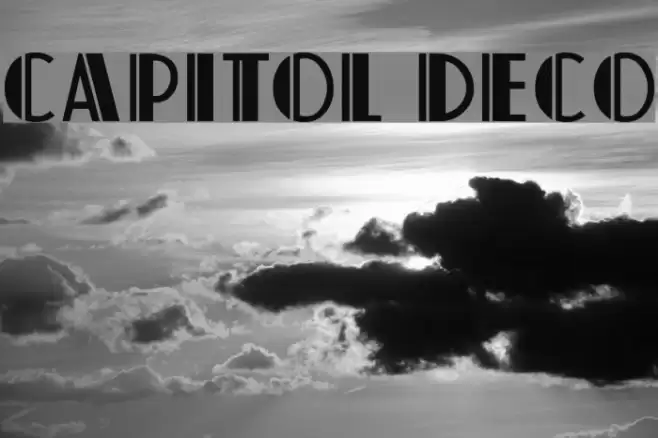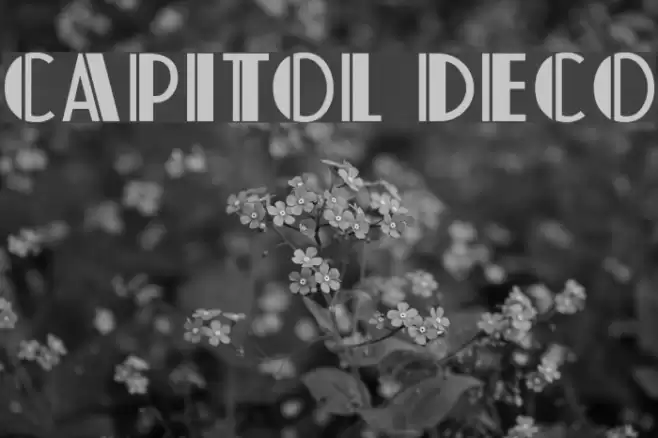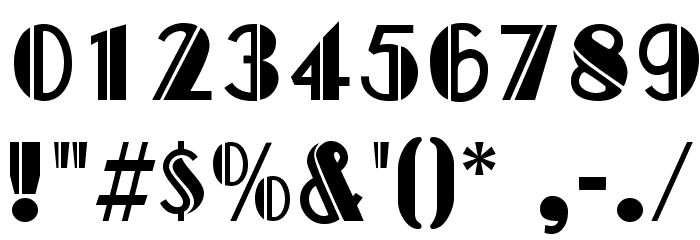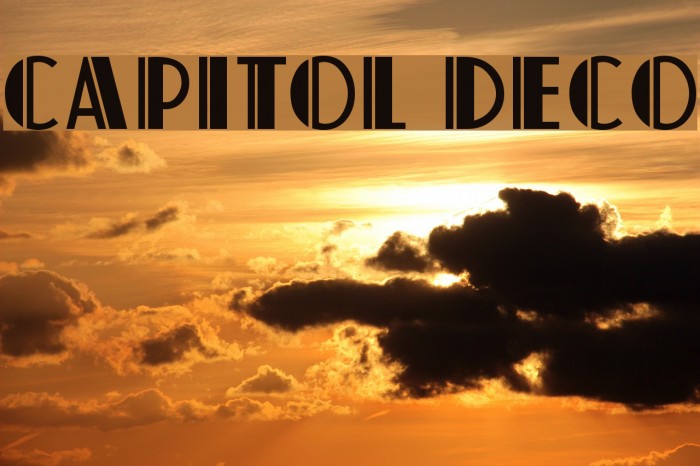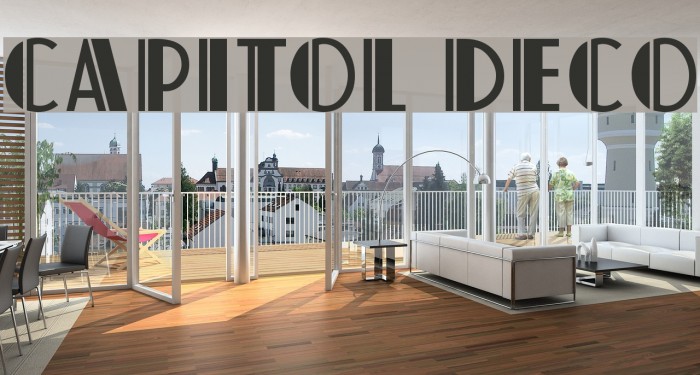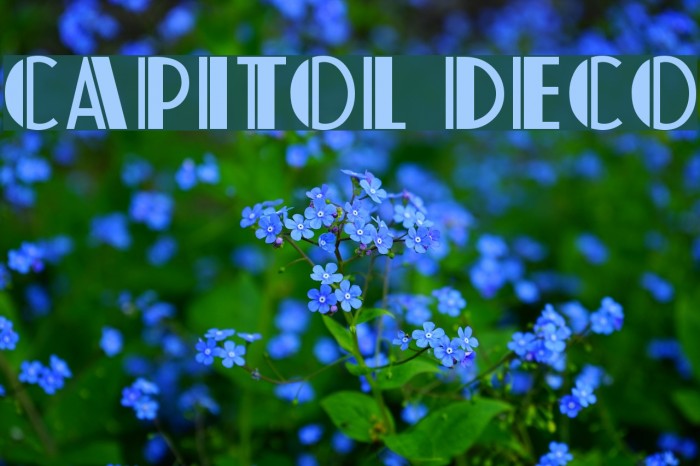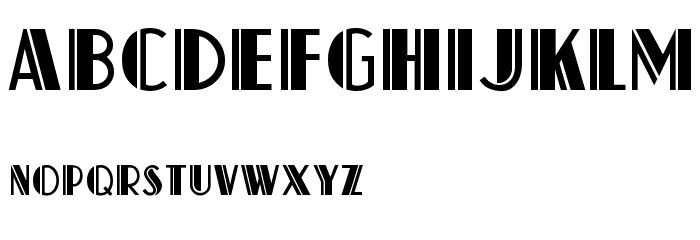
Capitol Deco Font
Capitol Deco Description
This font features a bold and striking Art Deco style, characterized by its geometric shapes and strong vertical lines. The uppercase letters are particularly distinctive, with a combination of thick and thin strokes that create a sense of elegance and sophistication. The lowercase letters maintain the same geometric aesthetic, providing a cohesive look across different text cases. Numbers and special characters are designed to match the overall style, ensuring consistency throughout. This font is ideal for projects that require a vintage or retro feel, capturing the essence of the early 20th century design trends.
A bold Art Deco style font with geometric shapes and strong vertical lines from Uncategorized fonts.
- Overall Style: Vintage